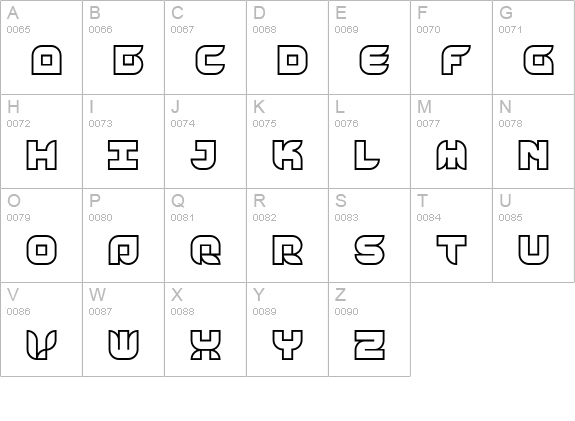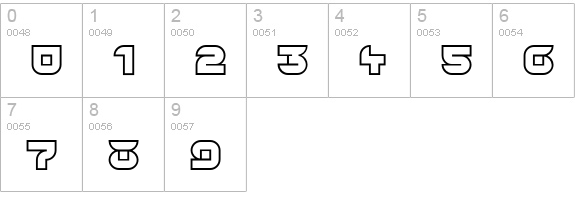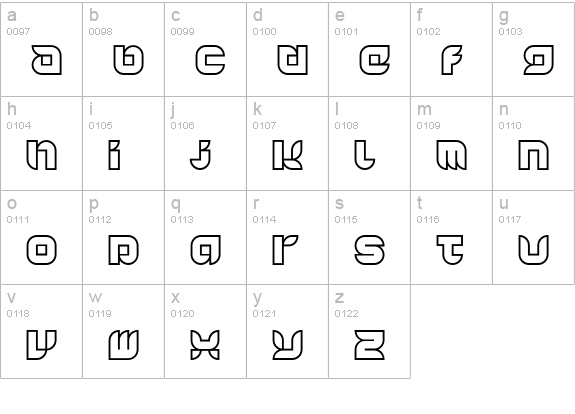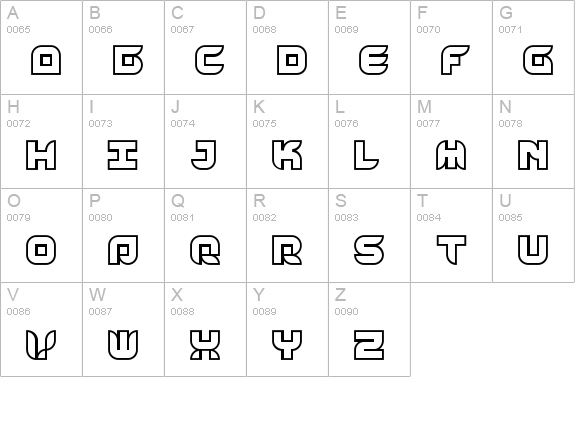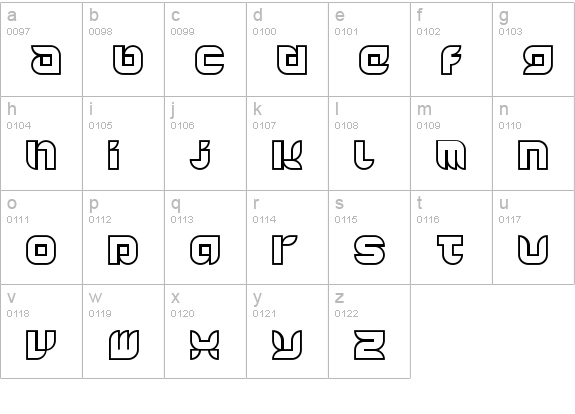
Yr72-Outline font is a sleek and modern typeface that exudes sophistication and style. Its clean lines and geometric shapes make it perfect for a wide range of design projects, from branding to editorial design. The outline style adds a unique twist, making your text stand out and catch the eye of your audience. Whether you're designing a poster, logo, or website, Yr72-Outline font will add a touch of elegance to your work. Best of all, Yr72-Outline font is available for free download at FontsMarket.com. This means you can easily access this high-quality typeface without any cost, making it a valuable addition to your design toolkit. Don't miss out on the opportunity to enhance your projects with the sophisticated charm of Yr72-Outline font - download it today and elevate your designs to the next level.